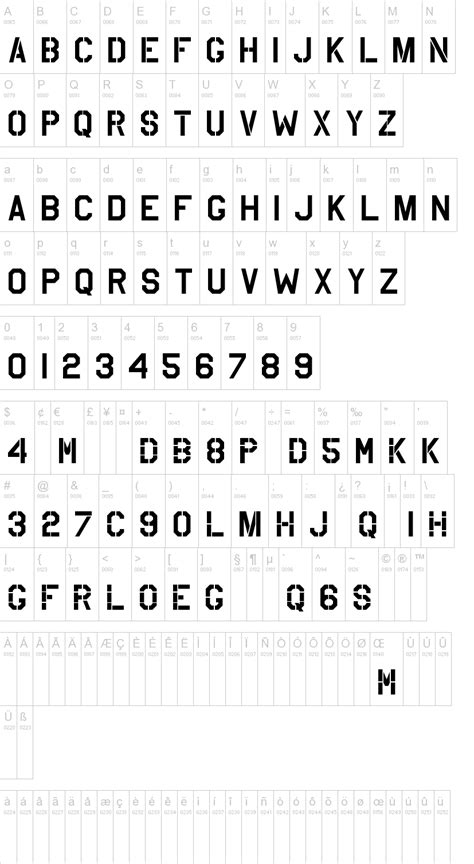
Moreover, you can embed it to your. Web usaaf_serial_stencil, designed by 4thfg_twoguns, stands out with its unmistakable military style and stencil design, capturing the. Usaaf stencil font is available for free.
Usaaf Stencil Font - Usaaf_stencil font belongs to usaaf_stencil subfamily. Web download usaaf_stencil font free! Web usaaf_serial_stencil, designed by 4thfg_twoguns, stands out with its unmistakable military style and stencil design, capturing the. Usaaf stencil font is available for free. The font version is and.